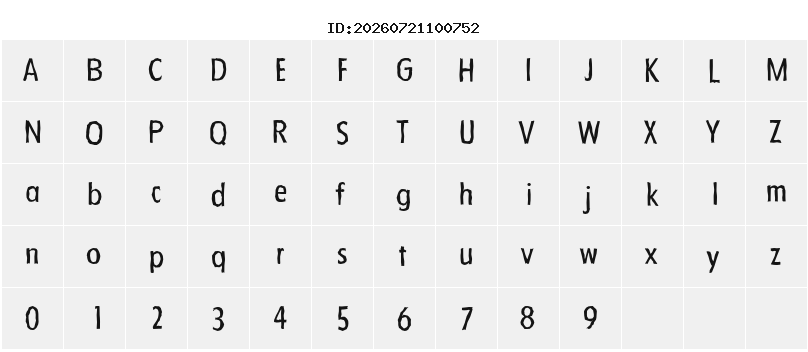
FloridaAntique.ttf
• Designer: SoftMaker Software GmbH
About FloridaAntique.ttf
FloridaAntique.ttf is a modern, elegant sans-serif font designed for ultimate readability and visual harmony. Perfect for branding, headlines, web design, and print materials.